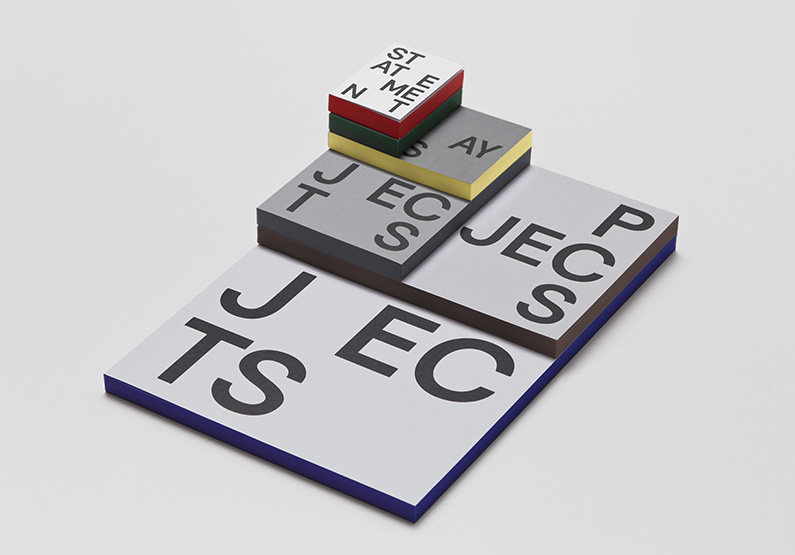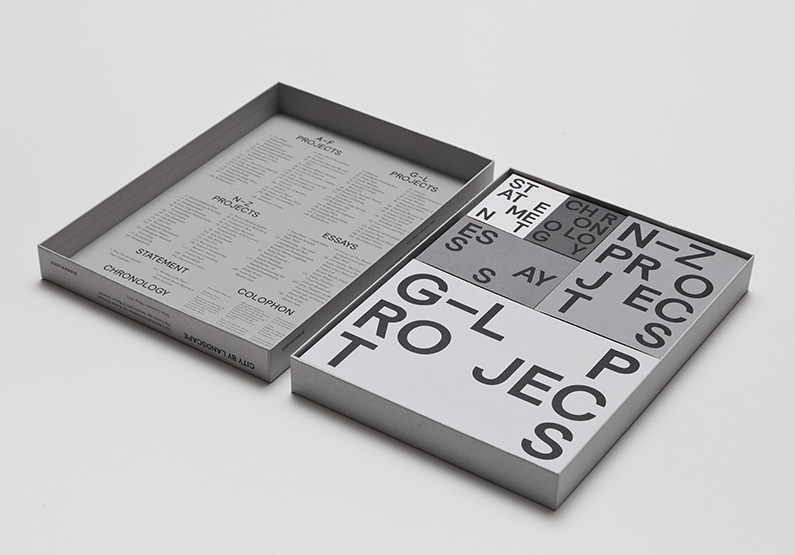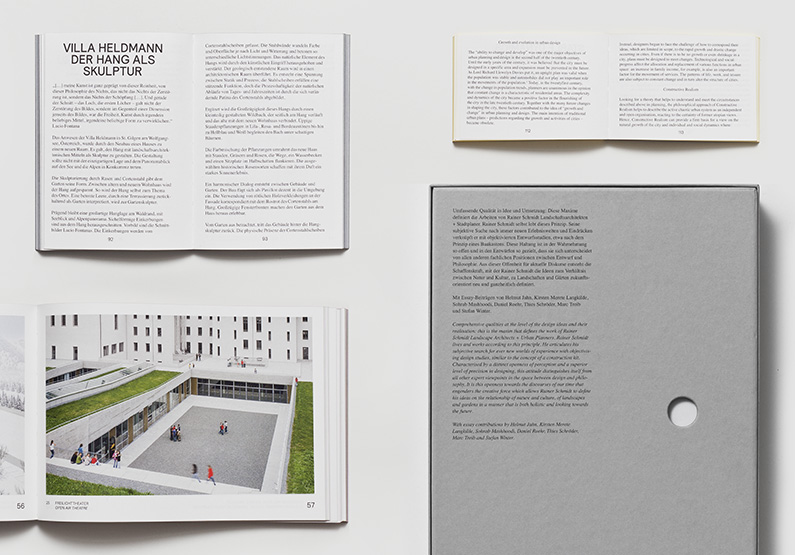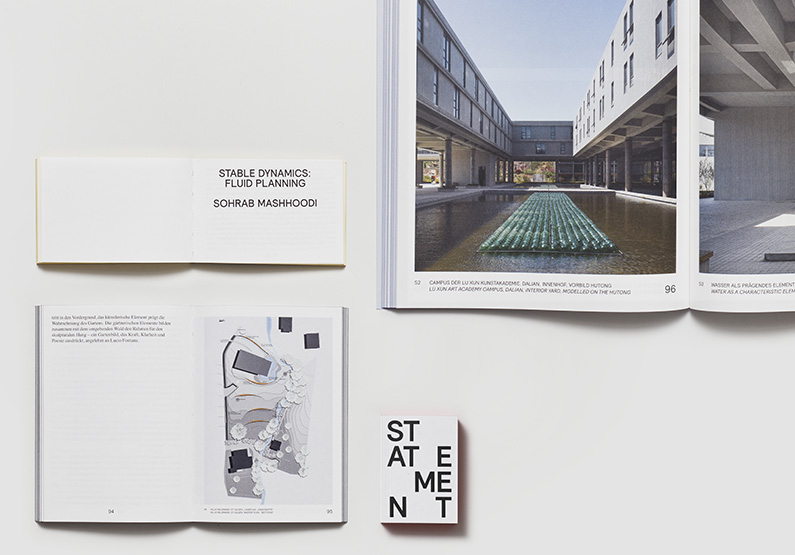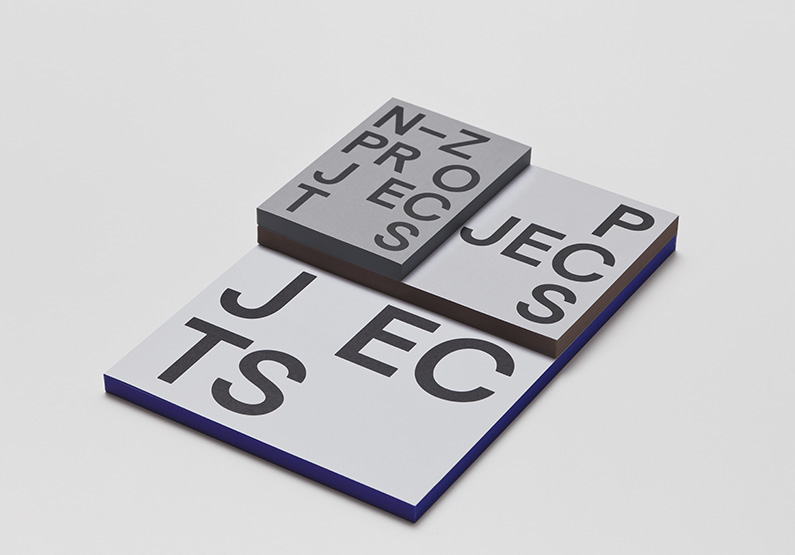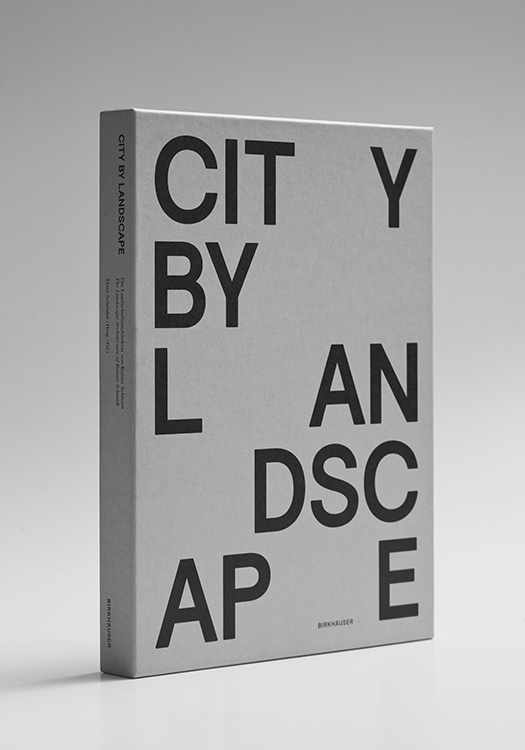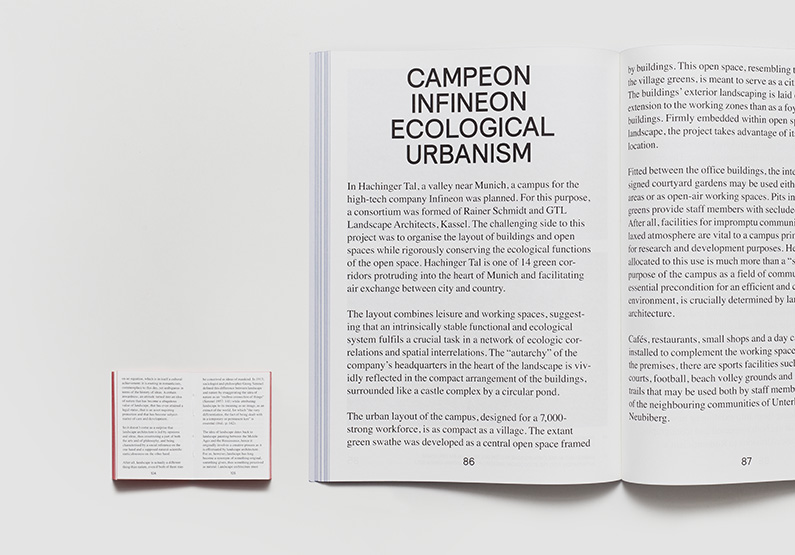
Scaled typography pays tribute to landscape architecture
Published by Birkhäuser Verlag, this publication of six volumes is a curated portfolio of projects by renowned architect Rainer Schmidt. Typography and composition are scaled proportionally to the format of each of the six individual books which are variants of the B series format and have a consistent 192 page range, all thanks to Berlin creative agency HORT. Accompanied by several essays on landscape architecture and urban planning, this publication devotes itself to the central themes of Schmidt’s work, documenting a selection of 40 projects. For more info on this concrete project check here.